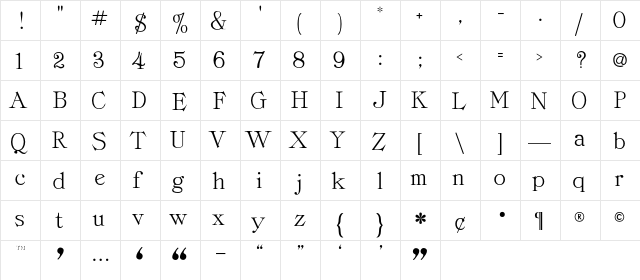
ClassicaRoman Regular
Design Context for ClassicaRoman Typeface
ClassicaRoman wears its vintage influences proudly, with letterforms that recall mid-century signage, classic packaging, and nostalgia-driven design.
Perfect for vintage-inspired branding, retro packaging, nostalgia campaigns, and period-accurate editorial design.
Font Pairing: Combine ClassicaRoman with a simple slab or neutral sans — period-accurate companions reinforce the vintage feel without competing for attention.
Pro Tip: Use ClassicaRoman for headlines and pull quotes rather than body copy — its personality is best appreciated in short, focused bursts.